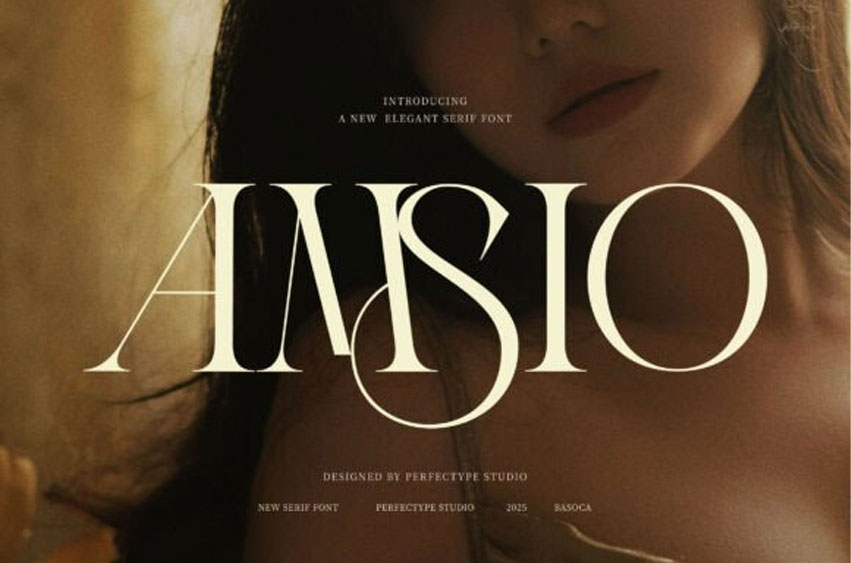
Amsio Font
Amsio Font Elegant Serif Font is a sophisticated and contemporary serif typeface designed to add a refined touch to your creative projects. With its proportional shapes, this font provides balanced and harmonious letterforms that suit every branding need. Whether you’re working on logos, websites, magazines, or product packaging, Amsio delivers clarity and elegance, enhancing your design’s overall impact.
One of Amsio’s standout features is its functional ligatures, which create smooth connections between letters. This not only improves readability but also brings a polished, professional look to your typography. Its versatile design adapts well across various media, making it perfect for branding, advertising, boutique promotions, and even food industry labels.
The modern yet timeless style of Amsio ensures that your designs remain fresh and stylish while maintaining a classic serif charm. This font is crafted to meet the demands of designers and businesses looking for a reliable, elegant typeface. Additionally, its clean lines and balanced proportions help communicate professionalism and trustworthiness, making it a great choice for large companies and startups alike.